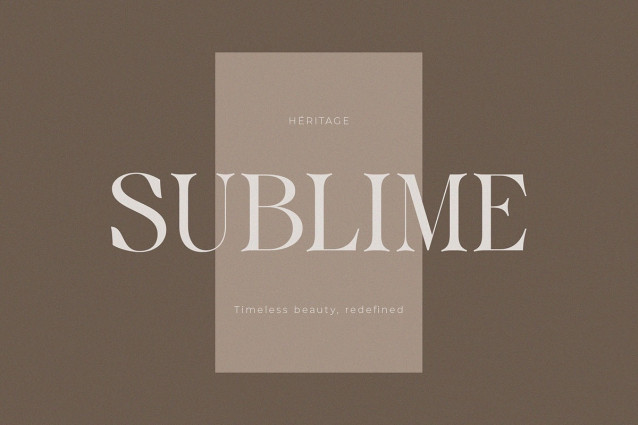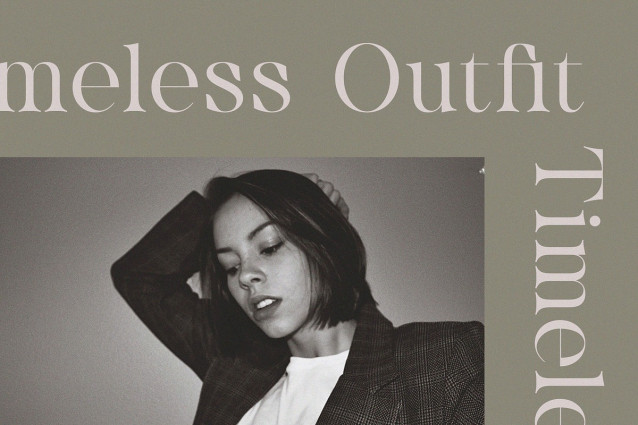
Grivon Font
Grivon Font is a nostalgic elegant serif font that captures the essence of vintage charm and timeless sophistication. Featuring beautifully balanced uppercase and lowercase characters, Grivon brings graceful curves, sharp serifs, and a soft rhythm that makes it ideal for classic branding, retro packaging, editorial headlines, fashion lookbooks, and artistic visual storytelling.
Perfectly blending old-world refinement with modern readability, Grivon is the go-to typeface for projects that aim to convey elegance, emotion, and authenticity.